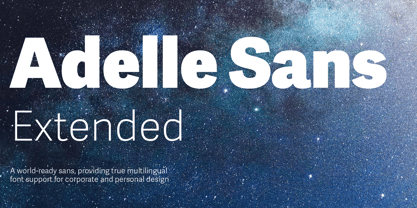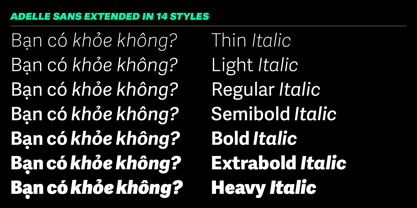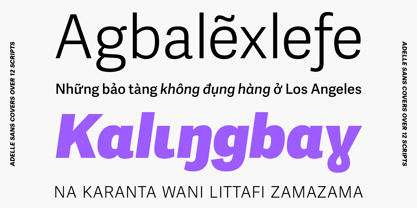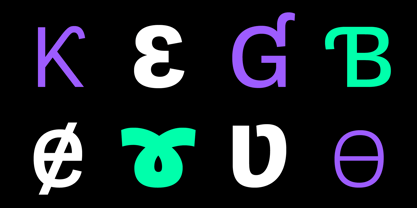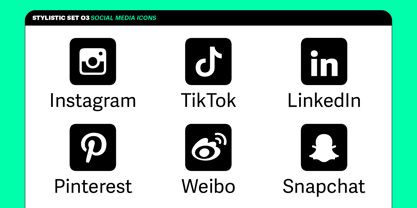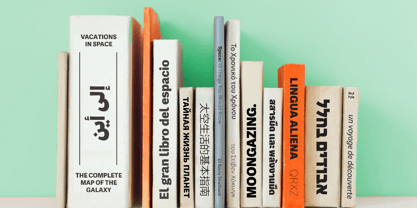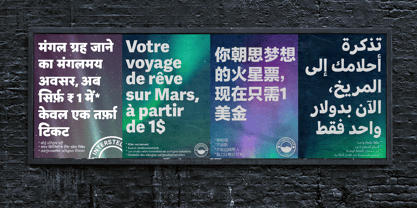
Adelle Sans Extended
The Adelle Sans Extended Font Family was designed by Veronika Burian, José Scaglione and published by TypeTogether. Adelle Sans Extended contains 14 styles and family package options. More about this family
The Adelle Sans Extended font family, José Scaglione and Veronika Burian’s sans serif, provides a clean and spirited take on the traditional grotesque sans for a major part of the global market: Vietnamese, Latin, and PanAfrican [latin based] languages are included. As is typical with TypeTogether typefaces, the most demanding editorial design problems were taken into consideration when creating Adelle Sans Extended. The combination of lively character and unobtrusive appearance inherent to grotesque sans serifs make it an utterly versatile tool for every imaginable situation. Whether for branding, signage, or advertising, the keyword behind Adelle Sans Extended’s use is flexibility.
Adelle Sans Extended is available in 7 weights with matching italics, and includes Latin, Vietnamese, and PanAfrican Latin. Each of these 14 styles is a perfect counterpart in terms of weight and vertical proportions to its language equivalents. This ensures type families fit harmoniously in the same block of text and gives a pleasing change of texture when used at similar point sizes.
To support PanAfrican Latin and to ensure coherence in the entire family, consultant Dr Don Osborn compiled a character list that would support all Latinbased languages of Africa. These languages use a wide range of resources to make an efficient notation system for the necessary sounds for every language. For example, the use of floating accents above and below the base characters, the use of phonetic alphabet glyphs (IPA), the use of Greek letters or Greek derivative shapes, extensive use of connected diacritic marks such as the hook or horn, the use of characters that where originally intended for other purposes (like the florin), and character clusters.
Rooted in the belief that broad language support is crucial to modern type design, the Extended family is yet another push in TypeTogether’s ongoing multilingual efforts. The naturally clean and spirited shapes of Adelle Sans lend themselves to a graceful translation of the structure of African and Vietnamese alphabets. Careful research and close collaboration with African type expert Don Osborn yielded typographic consistency, legibility, and cultural awareness within the Latin-based African languages, as well as filling the need for quality PanAfrican and Vietnamese editorial typefaces.
In addition to the 14 weights, Adelle Sans Extended contains its companion Latin and Vietnamese styles, each of which has been engineered to optically match the proportions of its counterparts. Together, the full Adelle Sans family delivers consistent, flexible, and personable results in multilingual documents and multicultural branding worldwide. Its 1,650 character set includes typographic niceties, small caps, several sets of figures, and support for over 400 languages. It also includes a set of 35 icons specially designed for electronic publications. The complete Adelle Sans family, along with our entire catalogue, has been optimised for today’s varied screen uses.